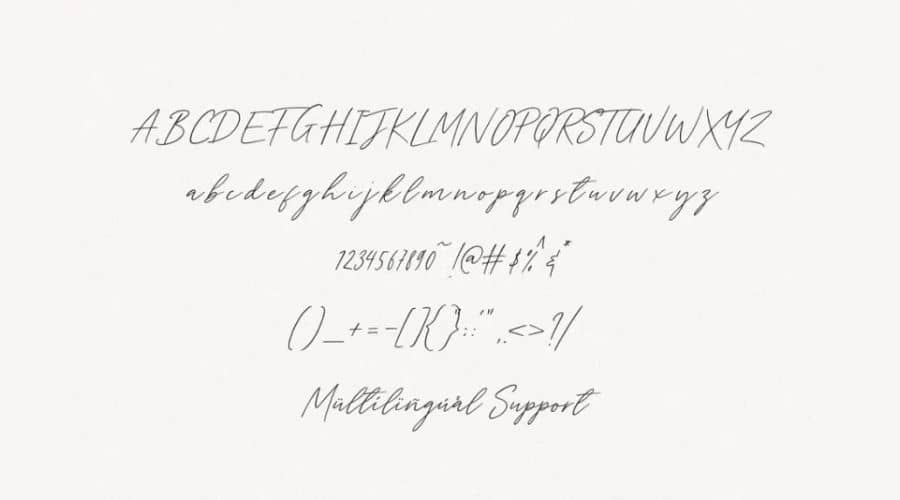
Tantinotes Handwritten Font
Tantinotes Font is a contemporary typeface. It’s a lovely handwritten and Script font. Sronstudio designed and shared the Font, which is a premium font. Tantinotes includes all uppercase and lowercase letters, as well as multilingual symbols, digits, and punctuation. The typeface is available for purchase on Creativemarket, but it was so good that it is now available for free download. Tantinotes Handwritten Font is a handwritten font that looks natural. On July 12, 2019, the Font was made public. It’s a stunning, sophisticated, elegant, and high-quality typeface.
Tantinotes is a light, airy handwritten Font with a vintage feel. Its lovely appeal will motivate you. Windows, Apple/Mac, Linux, Cricut, Silhouette, and other cutting machines are all compatible with the Font. It is simple to convert the Font to a web font. The typeface is available in two different formats: OTF and TTF. This Font belongs to the Tantinotes font family. Version 1.0 is the most recent version of this Font. This Font style is Regular. Because it is a natural handwritten typeface, it can provide any form of writing task an exquisite finish. It can be used on wallpaper with medium colors to draw attention to the Font’s beauty.
Tantinotes Handwritten Font is great for logos, invitations, stationery, wedding invitations, social media comments, commercials, packaging material, product designs, labels, photography, watermark, special events, and much more.
Tantinotes can offer your project a more youthful, expressive, and casual appearance. It’s an excellent choice for designers and other creatives who require a typeface like this. The beautiful Script and handwritten Font will also look great on a book cover. The typeface will also look wonderful in any book’s headings and subheadings.